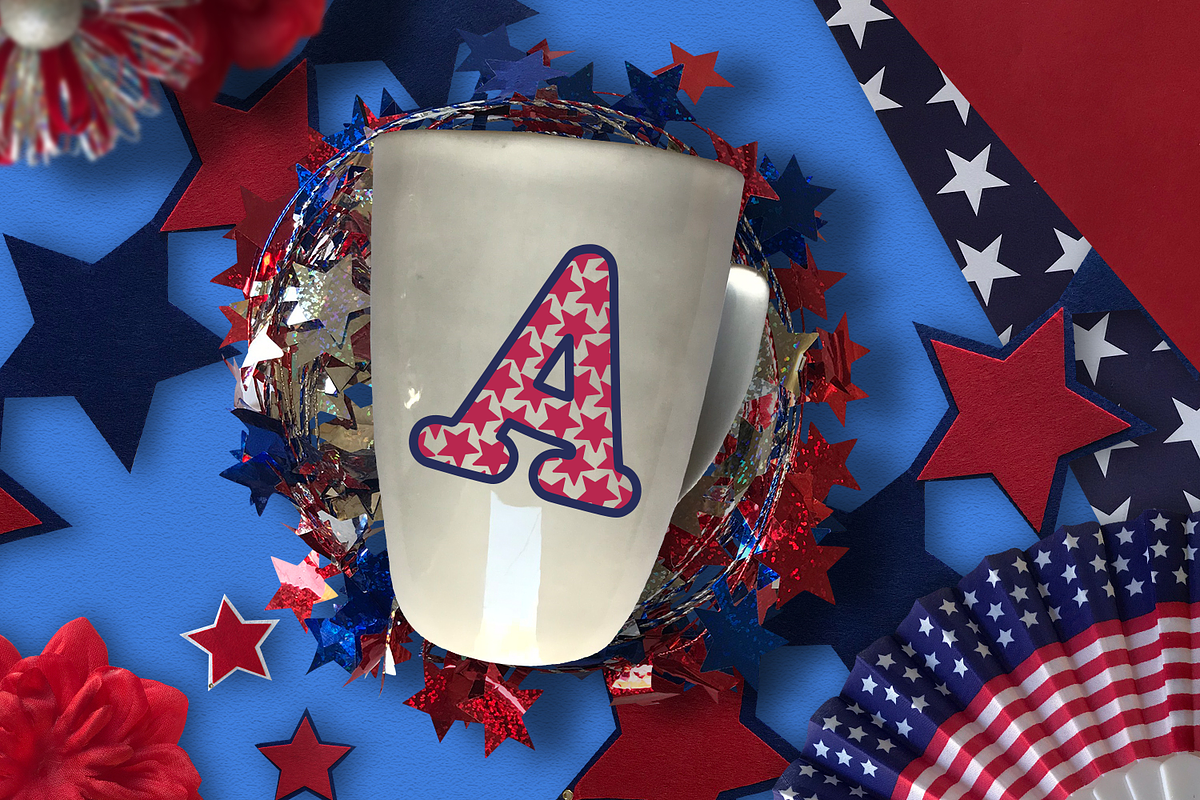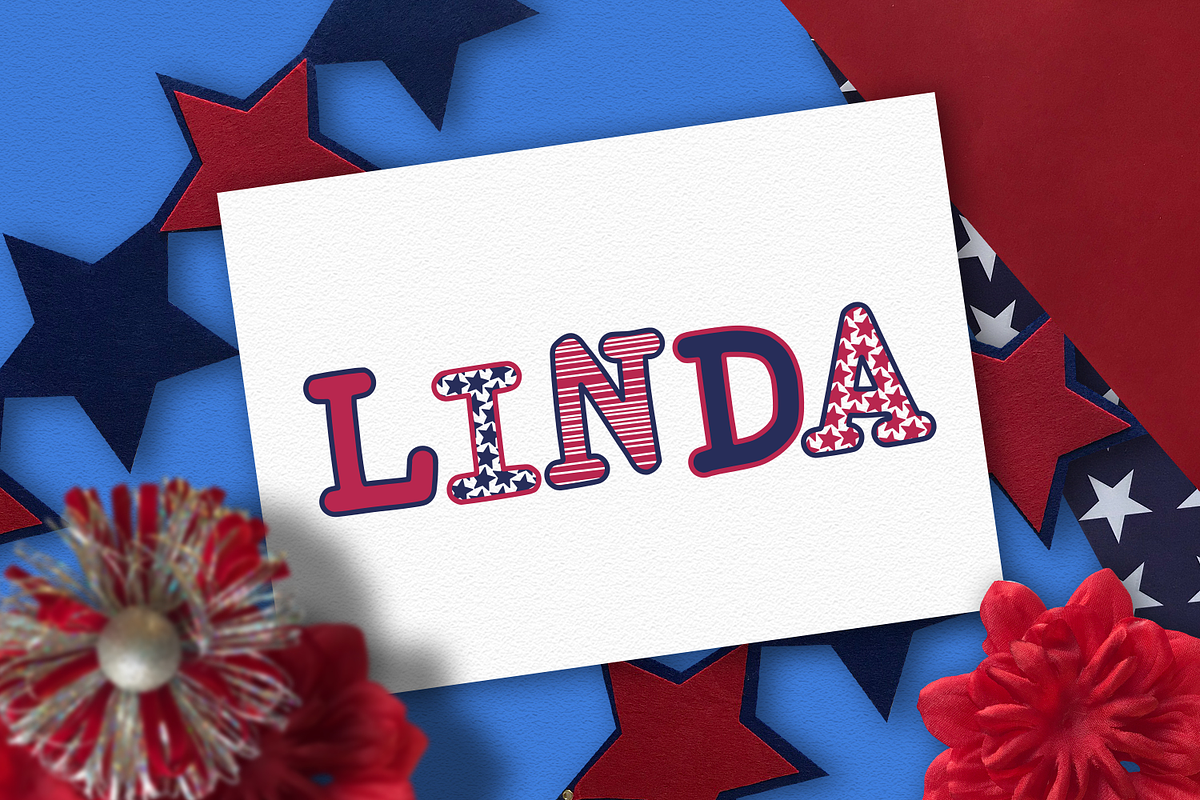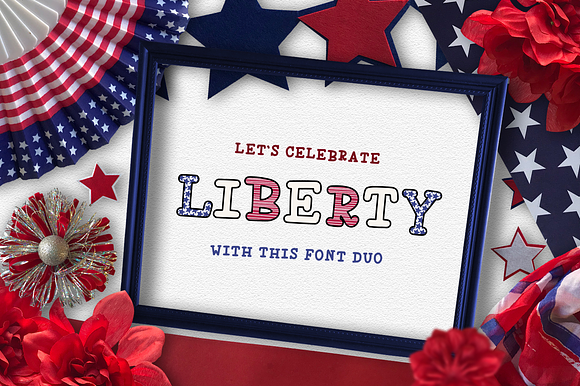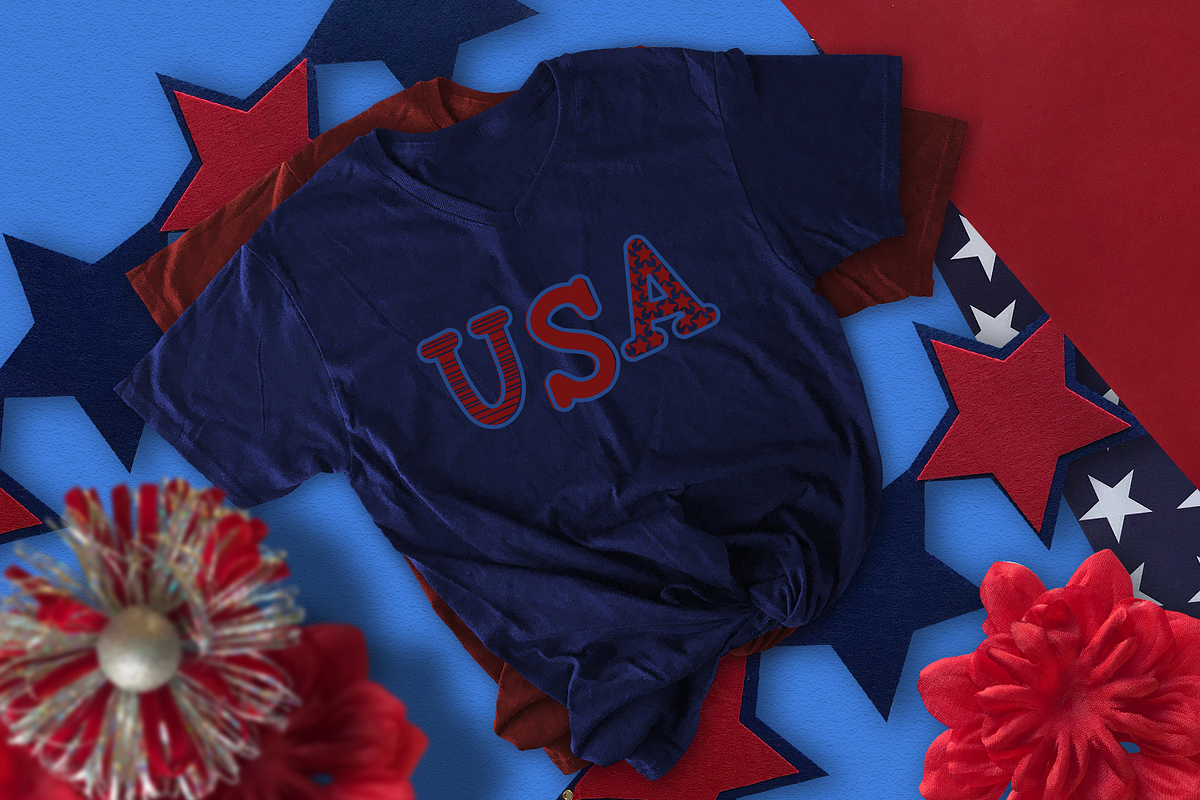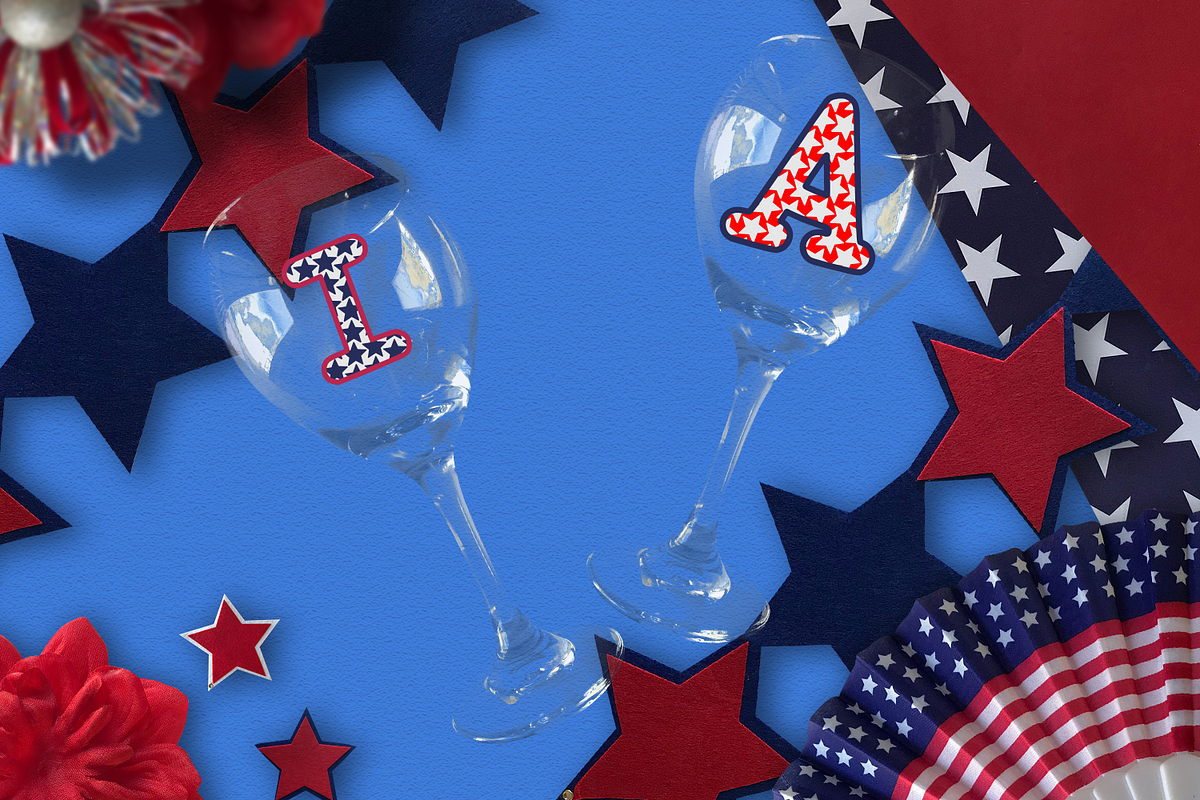
Liberty Font Duo - Stacked Font
Liberty Font Duo Stacked Font by CraftyLittleNodes is a font selected for branding, posters, packaging, typography.
Liberty Font Duo - Stacked Font by CraftyLittleNodes fits naturally into Branding, posters, packaging, typography.